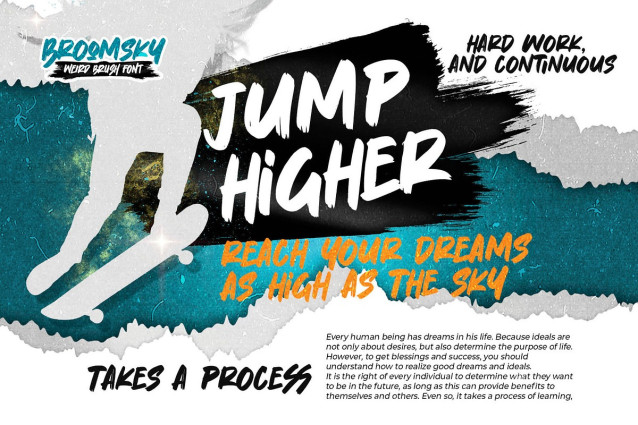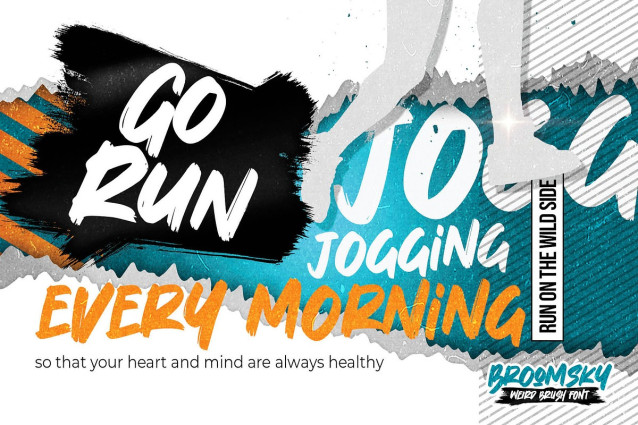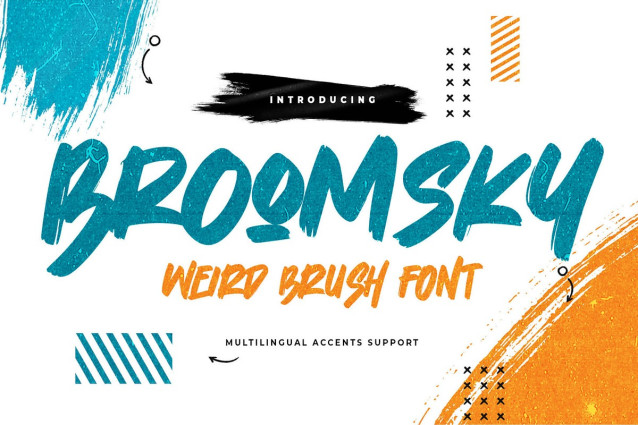
Broomsky Font
Broomsky Font is a wild and expressive brush font designed to bring raw energy and artistic character to your creative projects. With bold brush strokes, irregular shapes, and natural textured details, Broomsky delivers a dramatic, handcrafted feel—perfect for designs that need strong personality, movement, and visual impact.